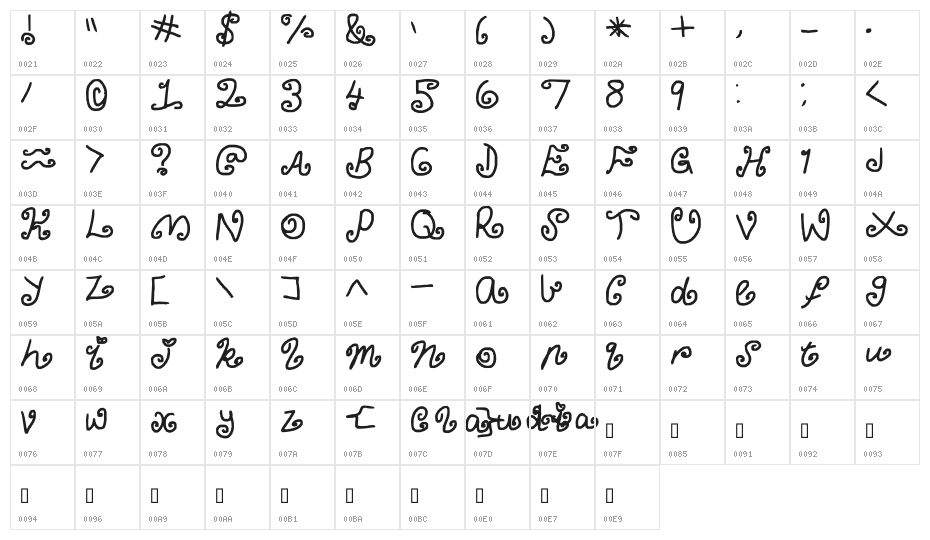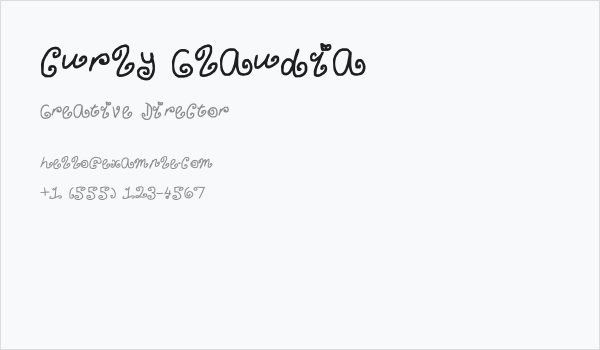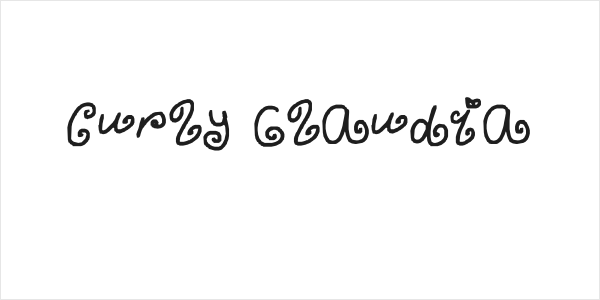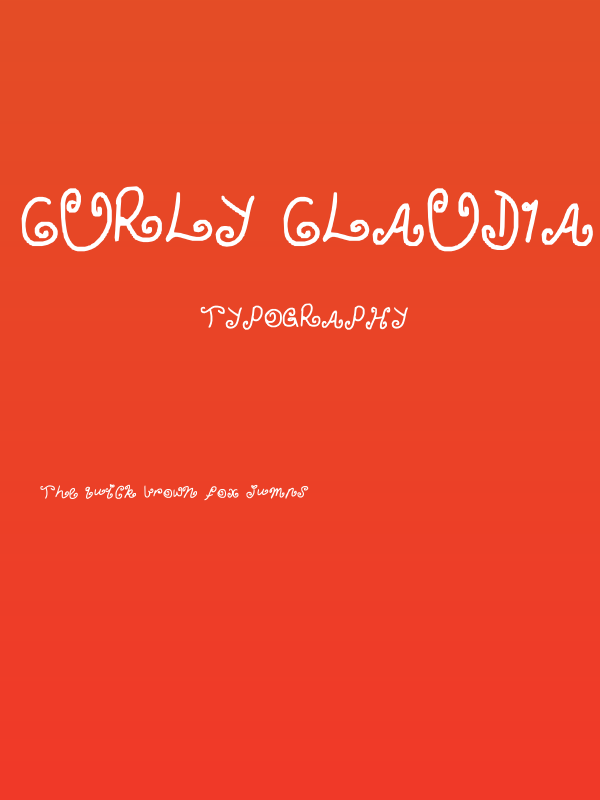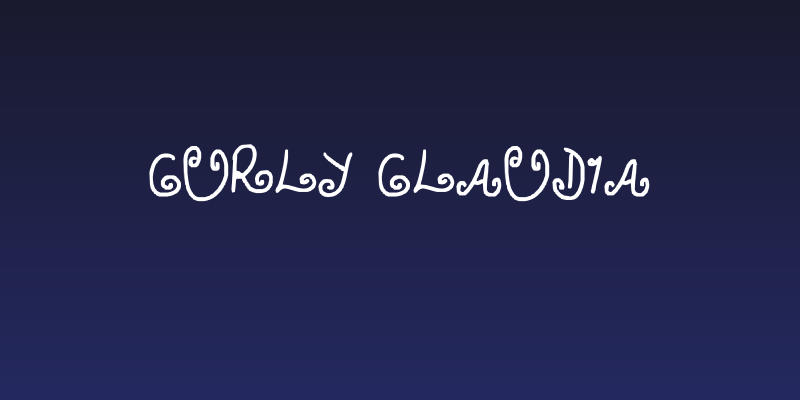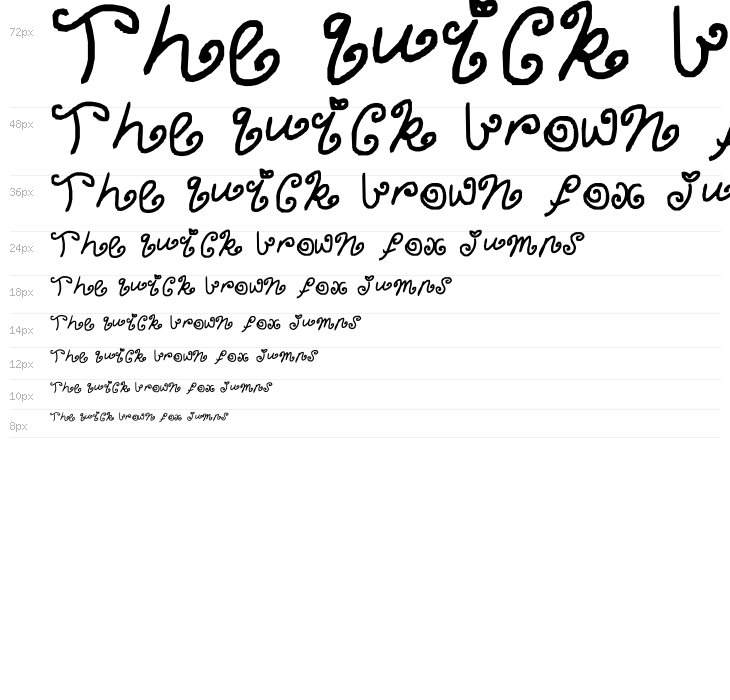
curly Claudia Font
curly Claudia Description
This font features a whimsical and playful design with curly, swirling elements that give it a unique and decorative appearance. The characters are crafted with a consistent stroke width, maintaining a medium contrast throughout. The uppercase and lowercase letters exhibit a harmonious flow, with each character featuring distinct curls and loops that add to its charm. The numbers and special characters are equally stylized, ensuring a cohesive look across all elements. This font's artistic flair makes it ideal for creative projects that require a touch of elegance and fun.
| Proposed Projects | Ideal for invitations, greeting cards, children's books, and playful branding. |